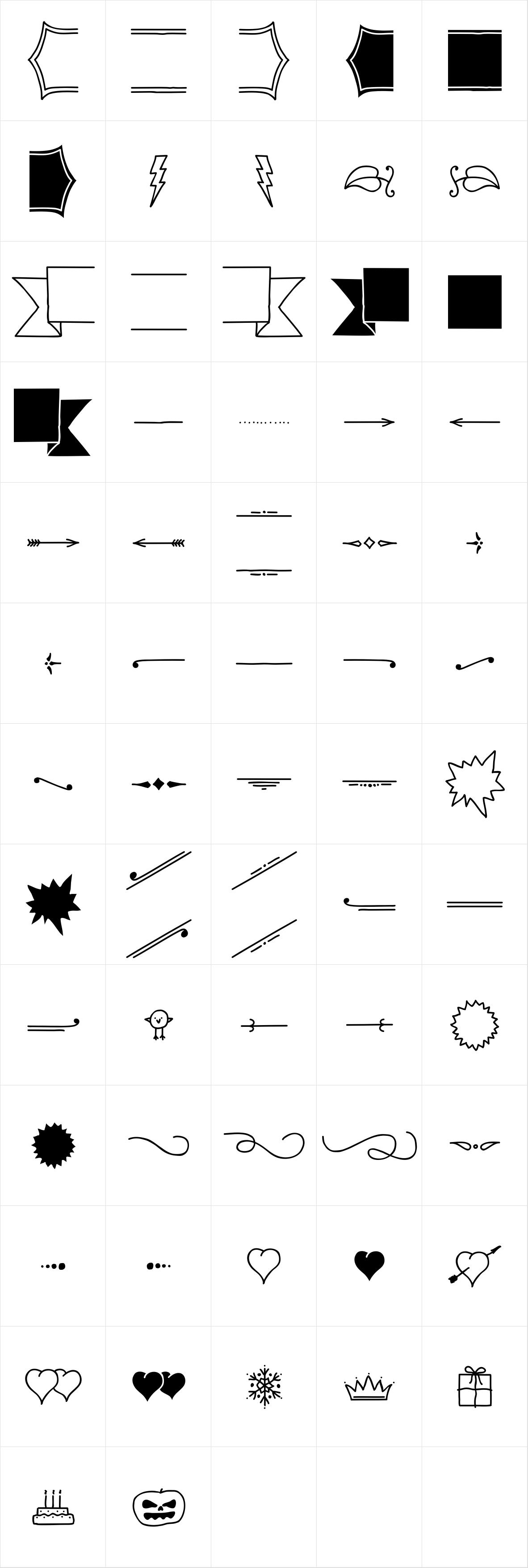
Finch Ornaments Frame 4 Font
- Finch is a handwritten font family designed in several variation for using in animation. For example, to create animated titles.